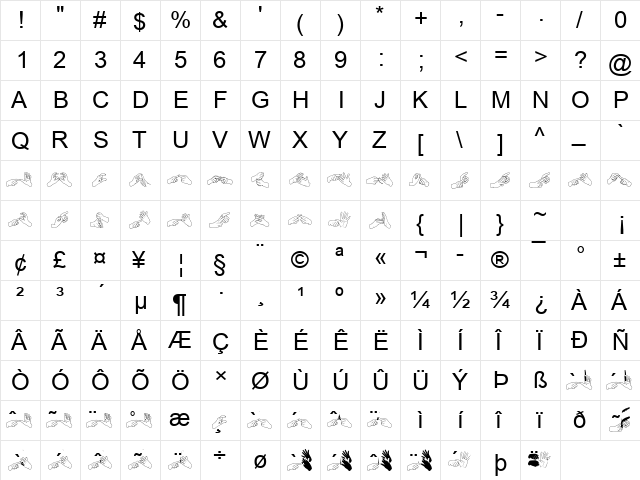
AdmanGraphics Auslan Regular
| Foundry | Monotype Typography |
| Designer | Monotype Type Drawing Office - Robin Nicholas, Patricia Saunders 1982 |
Design Context for AdmanGraphics Auslan Typeface
AdmanGraphics Auslan offers clean, dependable letterforms without strong stylistic allegiance, making it a practical choice for designers who need flexibility.